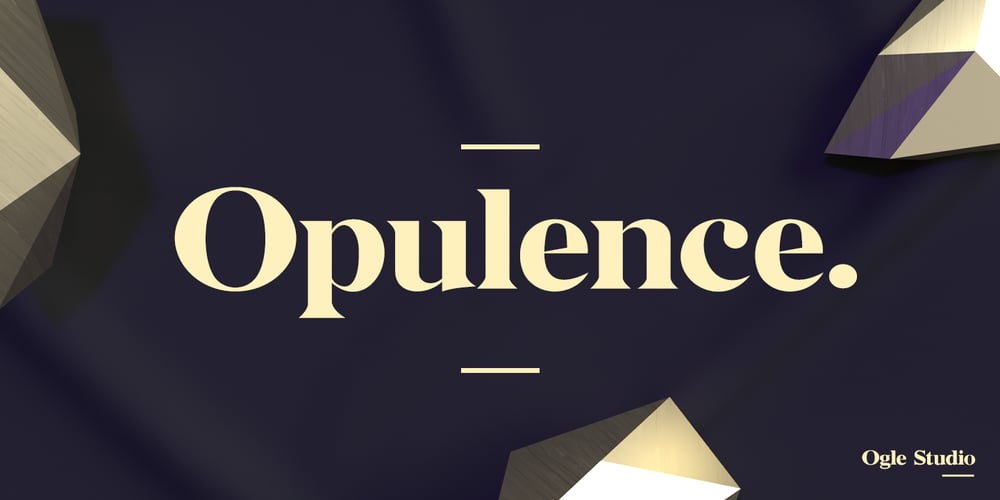
Opulence
Opulence font
Opulence Font Family was designed by Steven Whitfield and published by Ogle Studio. Opulence contains 1 styles and family package options. Opulence is a font designed to show the world you mean business. Inspired by Times New Roman, this contemporary serif typeface is perfect for business cards, logos, presentations and web.Crafted to promote a modern, clean and elegant solution for your projects. Not only is it a solid, bold choice for a title, it also shows its strength a subtitling and body text. Opulence contains 187 beautiful characters with latin and western language support.